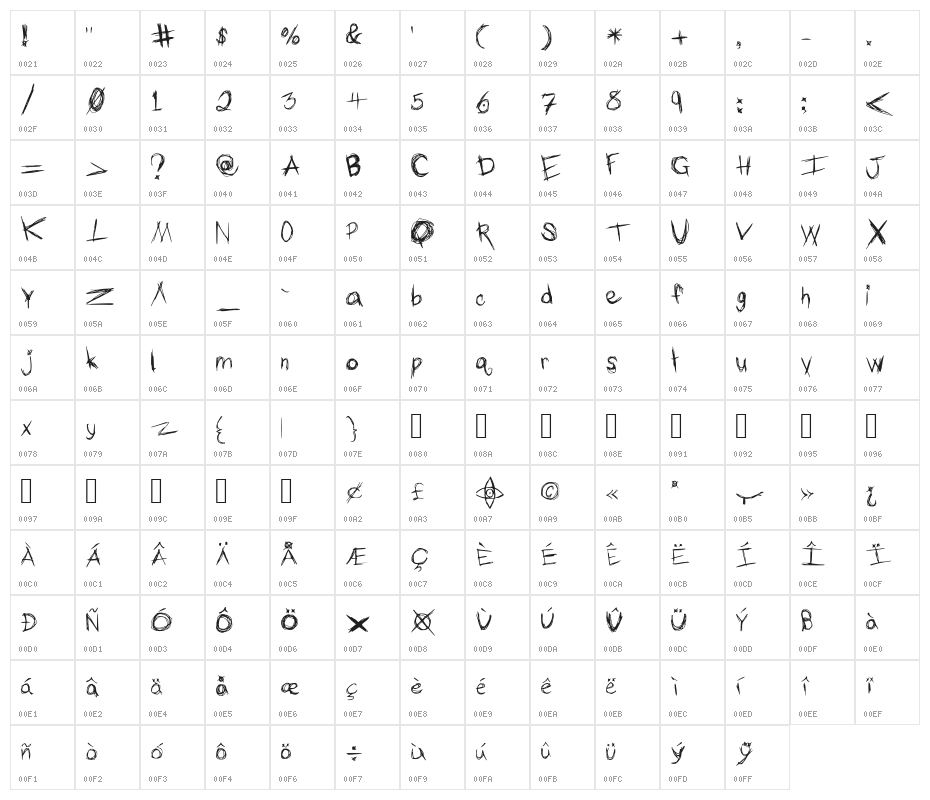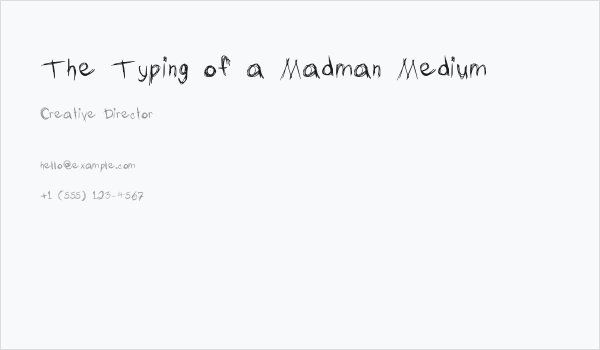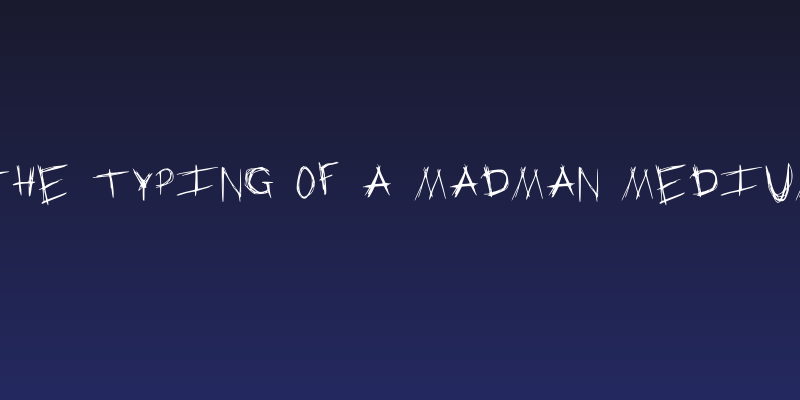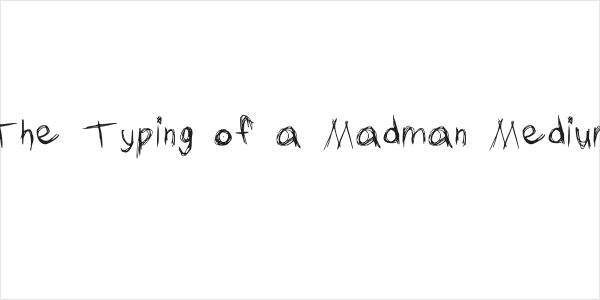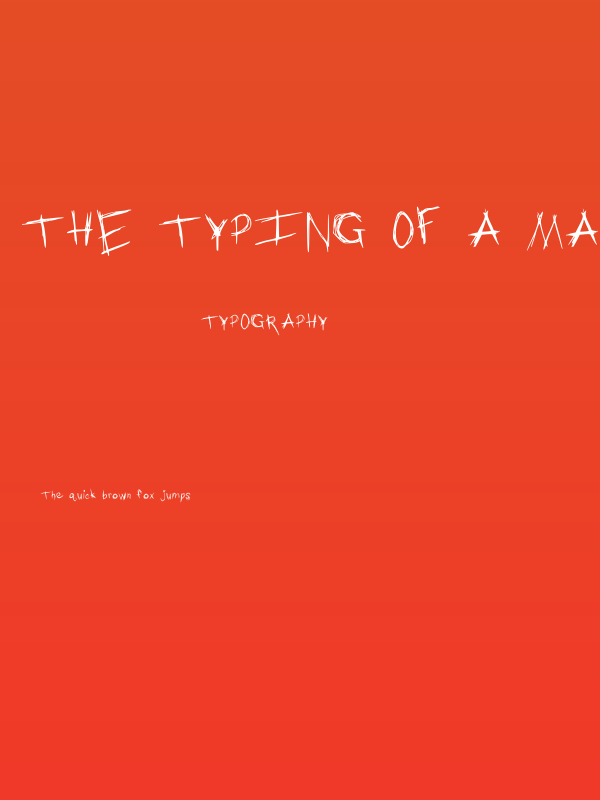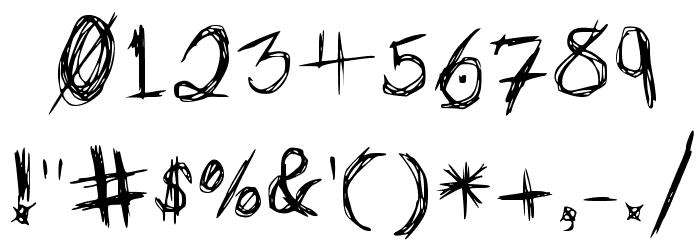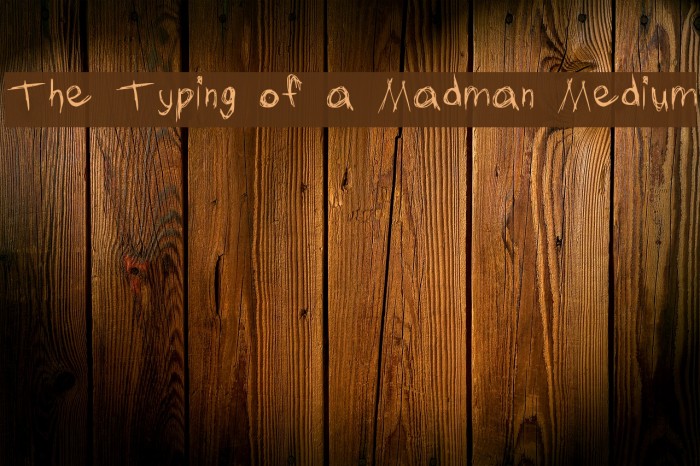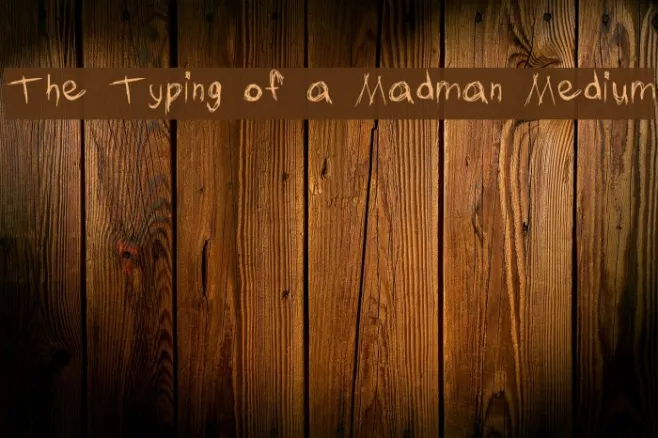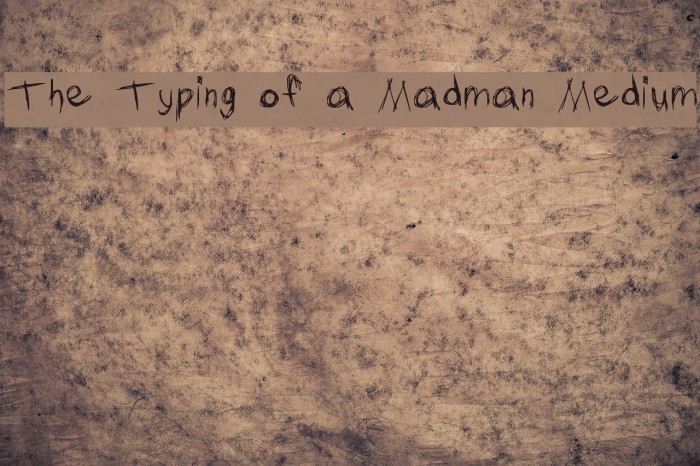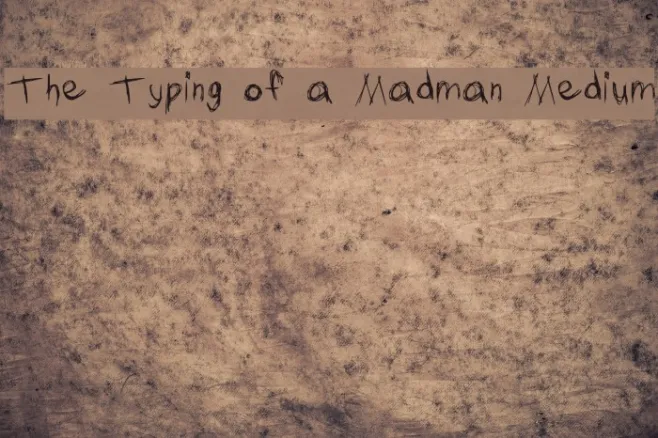
The Typing of a Madman Medium Font
| Anwendungsfall | Headlines, Posters, Album covers |
| Vorgeschlagene Projekte | Ideal for horror-themed posters, edgy graphic designs, album covers, or any project requiring a sense of chaos and creativity. |